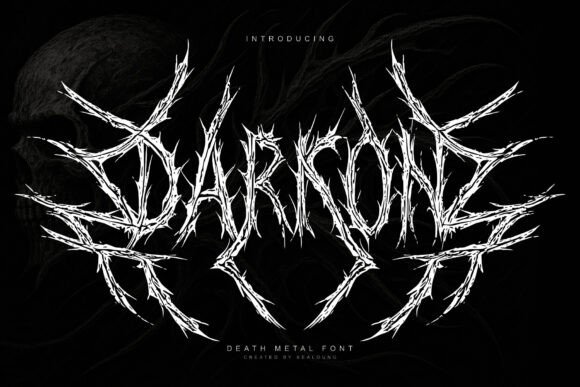
Unleash the Unholy Force of Darkness with Darkon Font
In the depths of the underworld, where the darkest corners of creativity reside, a new force has emerged to shake the foundations of the design world. Meet Darkon, a modern death metal typeface born from the very essence of extremity. Designed for creators who thrive on pushing the limits of art and design, Darkon delivers a sharp, sinister visual identity that captures the raw energy of death metal, extreme metal, and underground subcultures.
The Birth of Darkon
Darkon was conceived from the darkness, forged in the heart of the underworld, where the most extreme and avant-garde ideas come to life. The creators of Darkon sought to craft a typeface that would embody the spirit of death metal, with its aggressive and powerful sound. They drew inspiration from the likes of Cannibal Corpse, Morbid Angel, and Entombed, and channeled that energy into a font that would be the perfect representation of the genre.
The design process involved a meticulous attention to detail, with a focus on creating a font that would be both menacing and majestic. The result is a typeface that exudes an aura of darkness and malevolence, perfect for designers who want to make a bold statement with their work.
Characteristics of Darkon
Darkon is more than just a font – it’s an experience. Its sharp, jagged edges and pointed serifs evoke a sense of danger and unpredictability, while its bold and condensed structure conveys a sense of power and aggression. The font’s x-height is carefully crafted to create a sense of tension, making it perfect for headlines, titles, and any other design element that requires a strong visual impact.
One of the standout features of Darkon is its versatility. The font comes in a range of weights, from light to bold, allowing designers to experiment with different styles and effects. Whether you’re creating a poster, a t-shirt design, or a website, Darkon has the flexibility to adapt to any creative vision.
Use Cases for Darkon
Darkon is the perfect font for designers who want to create work that is bold, daring, and unconventional. Here are some use cases where Darkon truly shines:
- Death Metal and Extreme Metal Album Artwork: Darkon is the ideal font for creating album artwork that captures the raw energy and aggression of death metal and extreme metal music.
- Underground Zines and Fanzines: Darkon’s edgy, DIY aesthetic makes it a natural fit for underground zines and fanzines that celebrate the raw and unbridled creativity of the underground scene.
- Horror and Dark Art: Darkon’s dark, menacing vibe makes it perfect for designers who create artwork that explores the darker side of human experience.
- Merchandise and Apparel: Darkon’s bold, eye-catching design makes it perfect for creating merchandise and apparel that demands attention.
The Design Process
The design process for Darkon was a labor of love, involving countless hours of research, experimentation, and refinement. The creators of Darkon drew inspiration from a wide range of sources, including:
- Classic Death Metal Fonts: Darkon’s design is informed by the iconic fonts of the death metal scene, including the likes of Necronomicon and Cryptic Slaughter.
- Dark and Occult Imagery: Darkon’s aesthetic is influenced by the dark, mystical world of occult imagery and symbolism.
- Modern Design Trends: Darkon’s design also reflects modern design trends, including the use of bold, geometric shapes and clean lines.
Why Choose Darkon?
In a world where design trends are constantly evolving, Darkon offers a refreshingly bold and daring alternative. Here are just a few reasons why designers are choosing Darkon:
- Unique Visual Identity: Darkon offers a unique visual identity that sets it apart from more generic fonts.
- Flexibility: Darkon’s range of weights and styles makes it adaptable to a wide range of design applications.
- Authenticity: Darkon is a genuine representation of the death metal and extreme metal aesthetic, making it perfect for designers who want to create authentic and credible work.
Darkon is more than just a font – it’s a movement. It’s a call to arms for designers who want to push the boundaries of creativity and challenge the status quo. With its sharp, sinister aesthetic and bold, daring design, Darkon is the perfect choice for anyone who wants to unleash the unholy force of darkness in their work.